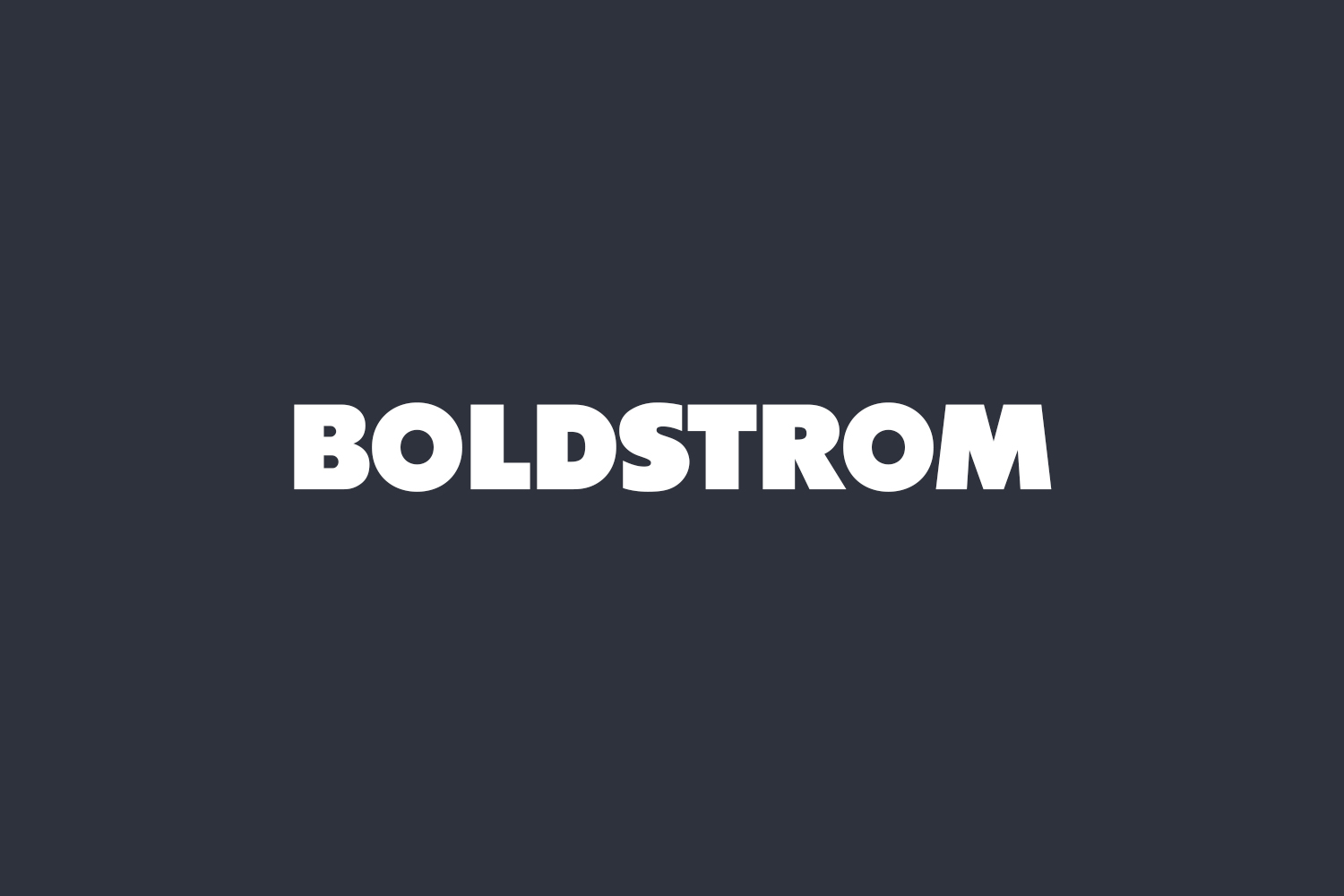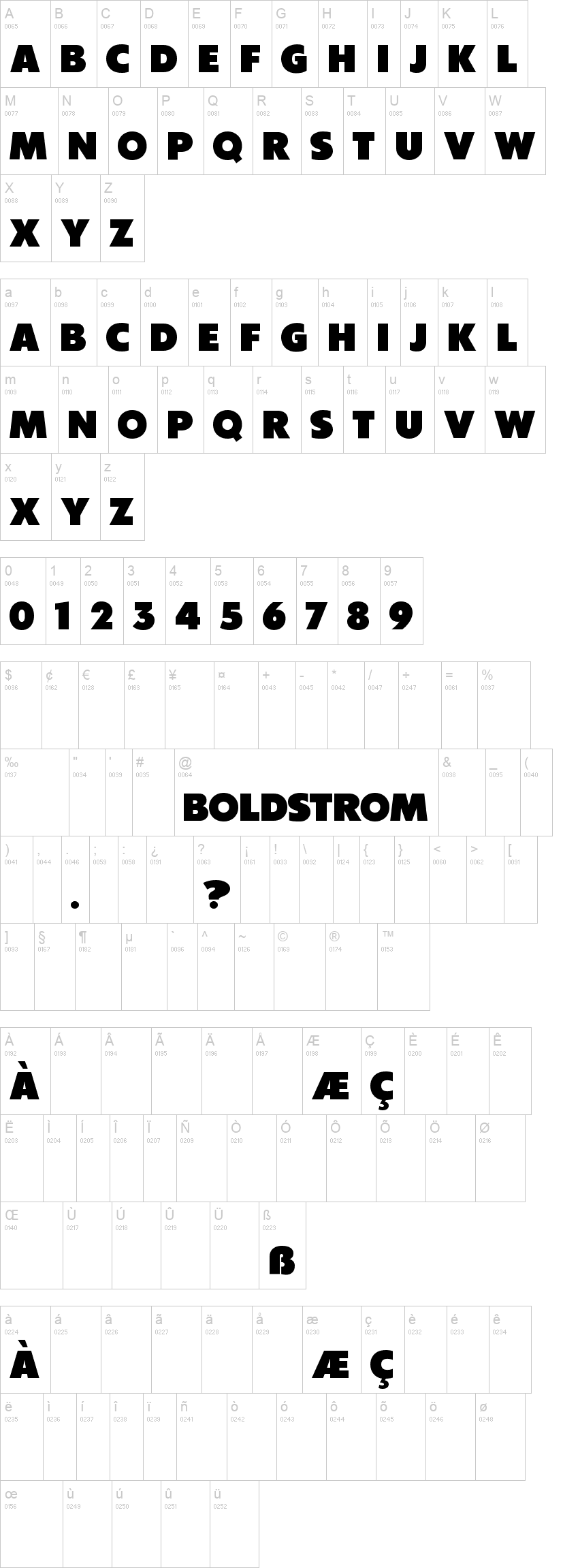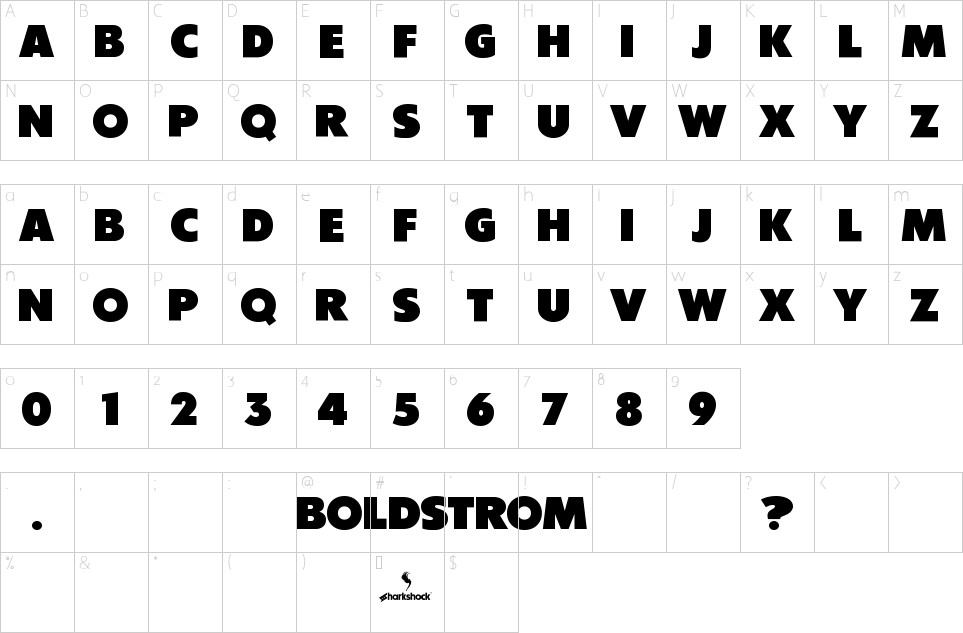
Boldstrom Font Free Download - Web the boldstrom font has been downloaded 27,740 times. Web the boldstrom family is equipped with basic latin, extended latin, diacritics, cyrillic, greek, support for polish, symbols, punctuation, and kerning. Web the boldstrom family is equipped with basic latin, extended latin, diacritics, cyrillic, greek, support for polish, symbols, punctuation, and kerning. New fonts | top fonts | submit a font | font designers | 10,000 fonts | faq | contact The demo contains basic latin and limited punctuation only. Emphasis was put into strong line weight, minimal contrast, and tight curves. Download the boldstrom font by sharkshock. The demo contains basic latin and limited punctuation only.
Web the boldstrom family is equipped with basic latin, extended latin, diacritics, cyrillic, greek, support for polish, symbols, punctuation, and kerning. Web the boldstrom family is equipped with basic latin, extended latin, diacritics, cyrillic, greek, support for polish, symbols, punctuation, and kerning. The demo contains basic latin and limited punctuation only. Web the boldstrom font has been downloaded 27,740 times. Download the boldstrom font by sharkshock. New fonts | top fonts | submit a font | font designers | 10,000 fonts | faq | contact Emphasis was put into strong line weight, minimal contrast, and tight curves. The demo contains basic latin and limited punctuation only.
Download the boldstrom font by sharkshock. Web the boldstrom family is equipped with basic latin, extended latin, diacritics, cyrillic, greek, support for polish, symbols, punctuation, and kerning. Web the boldstrom font has been downloaded 27,740 times. New fonts | top fonts | submit a font | font designers | 10,000 fonts | faq | contact The demo contains basic latin and limited punctuation only. Web the boldstrom family is equipped with basic latin, extended latin, diacritics, cyrillic, greek, support for polish, symbols, punctuation, and kerning. Emphasis was put into strong line weight, minimal contrast, and tight curves.
Boldstrom font
Web the boldstrom family is equipped with basic latin, extended latin, diacritics, cyrillic, greek, support for polish, symbols, punctuation, and kerning. Emphasis was put into strong line weight, minimal contrast, and tight curves. New fonts | top fonts | submit a font | font designers | 10,000 fonts | faq | contact Download the boldstrom font by sharkshock. The demo.
Web the boldstrom family is equipped with basic latin, extended latin, diacritics, cyrillic, greek, support for polish, symbols, punctuation, and kerning. Download the boldstrom font by sharkshock. Web the boldstrom font has been downloaded 27,740 times. New fonts | top fonts | submit a font | font designers | 10,000 fonts | faq | contact The demo contains basic latin.
Boldstrom font
New fonts | top fonts | submit a font | font designers | 10,000 fonts | faq | contact Web the boldstrom family is equipped with basic latin, extended latin, diacritics, cyrillic, greek, support for polish, symbols, punctuation, and kerning. The demo contains basic latin and limited punctuation only. Emphasis was put into strong line weight, minimal contrast, and tight.
Boldstrom Font
Emphasis was put into strong line weight, minimal contrast, and tight curves. Web the boldstrom font has been downloaded 27,740 times. Download the boldstrom font by sharkshock. The demo contains basic latin and limited punctuation only. The demo contains basic latin and limited punctuation only.
Boldstrom Windows font free for Personal
Web the boldstrom family is equipped with basic latin, extended latin, diacritics, cyrillic, greek, support for polish, symbols, punctuation, and kerning. The demo contains basic latin and limited punctuation only. New fonts | top fonts | submit a font | font designers | 10,000 fonts | faq | contact Download the boldstrom font by sharkshock. Emphasis was put into strong.
Boldstrom Font Free Download
Web the boldstrom font has been downloaded 27,740 times. The demo contains basic latin and limited punctuation only. Emphasis was put into strong line weight, minimal contrast, and tight curves. Web the boldstrom family is equipped with basic latin, extended latin, diacritics, cyrillic, greek, support for polish, symbols, punctuation, and kerning. Web the boldstrom family is equipped with basic latin,.
boldstromfreefont02 Fonts Shmonts
Download the boldstrom font by sharkshock. Emphasis was put into strong line weight, minimal contrast, and tight curves. The demo contains basic latin and limited punctuation only. Web the boldstrom font has been downloaded 27,740 times. Web the boldstrom family is equipped with basic latin, extended latin, diacritics, cyrillic, greek, support for polish, symbols, punctuation, and kerning.
New fonts | top fonts | submit a font | font designers | 10,000 fonts | faq | contact Web the boldstrom family is equipped with basic latin, extended latin, diacritics, cyrillic, greek, support for polish, symbols, punctuation, and kerning. Download the boldstrom font by sharkshock. The demo contains basic latin and limited punctuation only.
Emphasis Was Put Into Strong Line Weight, Minimal Contrast, And Tight Curves.